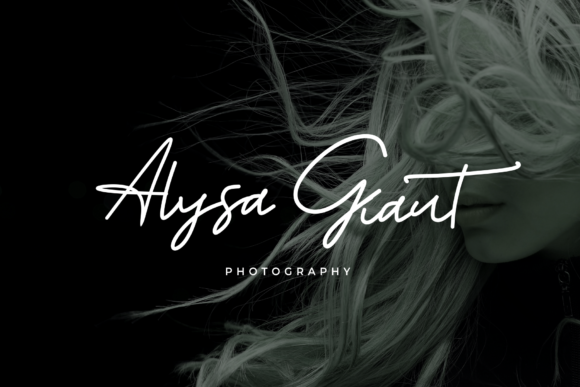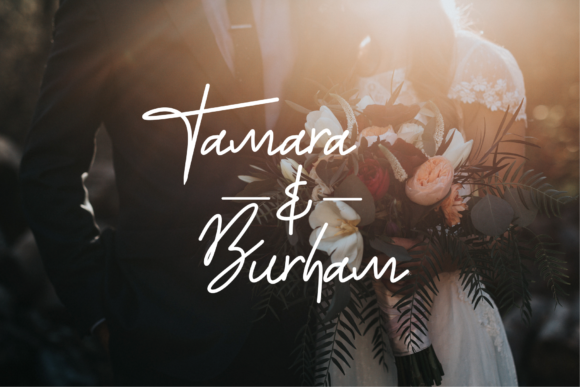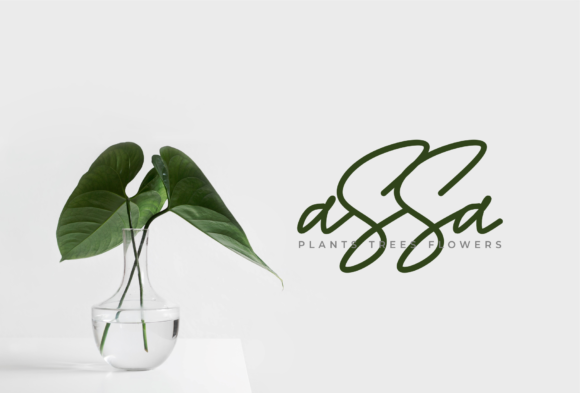
The Austin Smith Font: A Timeless, Handwritten Classic
Have you ever been in the middle of a design project, pouring your heart and soul into every detail, only to hit a roadblock when it comes to choosing the perfect font? I certainly have! Recently, I was working on a branding project for a luxury wedding planner, and I needed a font that exuded elegance, sophistication, and a touch of whimsy. That’s when I stumbled upon the stunning Austin Smith font.
This beautiful, thin, and flowing handwritten font has been a game-changer for my designs, and I’m excited to share my love for it with you. With its classy calligraphic influences and contemporary feel, Austin Smith is sure to elevate your projects to new heights!
• ✅ Elegant, flowing script with a sophisticated feel
• ✅ Perfect for luxury brands, wedding designs, and high-end projects
• ✅ Works beautifully in both digital and print formats
• ⚠️ Some letters may require manual kerning for optimal spacing
• ⚠️ Limited availability of stylistic alternates (but still plenty of OpenType features to explore)
The Story Behind Austin Smith: A Designer’s Inspiration
According to its creator, Austin Smith was designed to capture the essence of classic calligraphy with a modern twist. The font’s elegant, flowing lines and sophisticated feel make it perfect for designers seeking a high-end, luxurious look. Whether you’re working on a wedding invitation, luxury brand identity, or high-end product design, Austin Smith is sure to impress.
Q: What makes Austin Smith unique?
A: Austin Smith’s unique blend of classic calligraphy and modern sensibilities sets it apart from other handwritten fonts. Its elegant, flowing lines and sophisticated feel make it perfect for luxury brands and high-end projects.
Q: Is Austin Smith suitable for body text?
A: While Austin Smith is a beautiful font, it’s best suited for headlines, titles, and short paragraphs. Its elegant, flowing lines may not be ideal for longer blocks of body text.